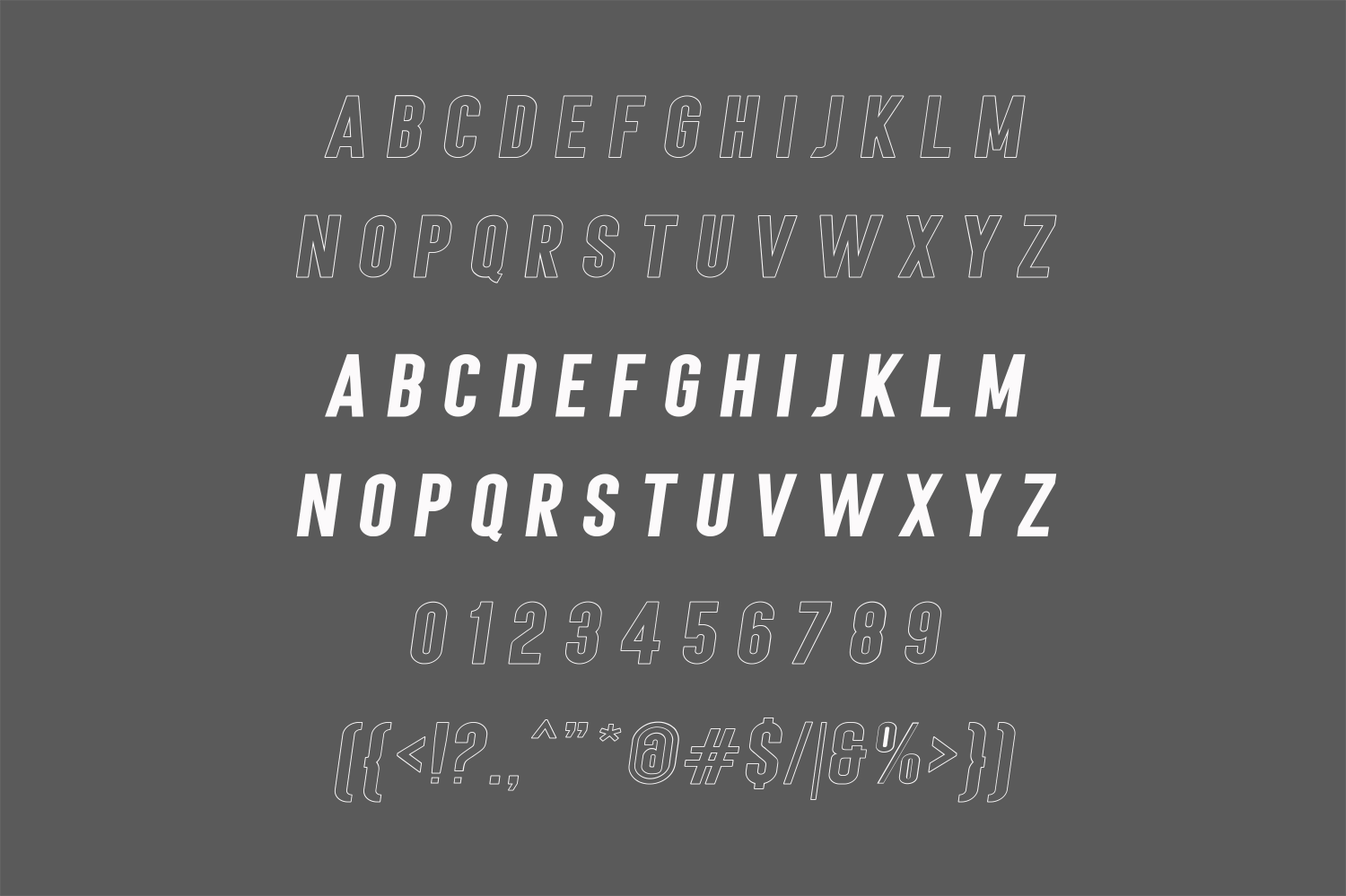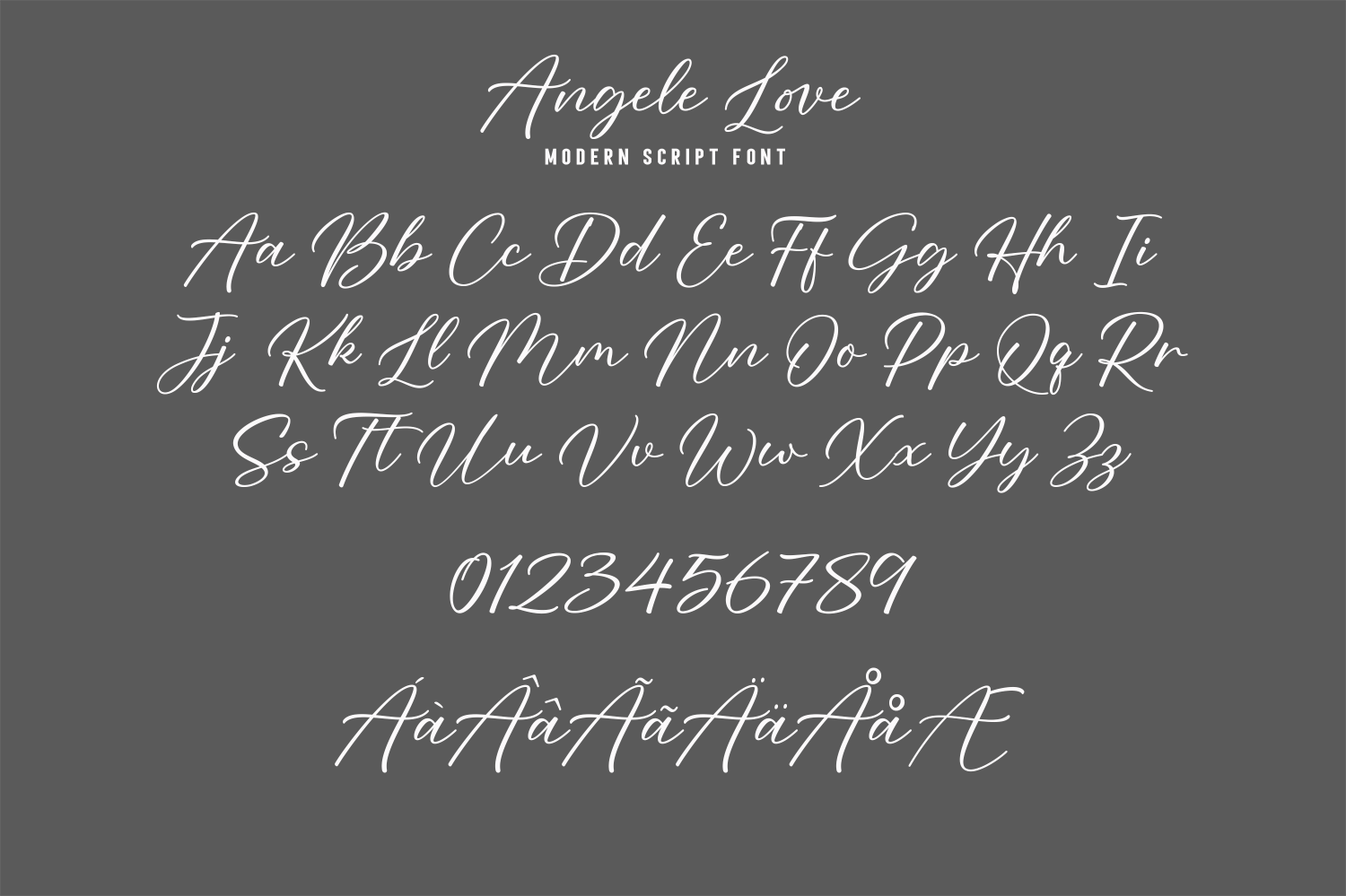
About Angela Love
Introducing Angela Love A modern combination of 5 fonts, each carefully designed to naturally complement one another. With 4 clean sans fonts and 1 modern script fonts, Angela Love gives you a hugely versatile collection of fonts…